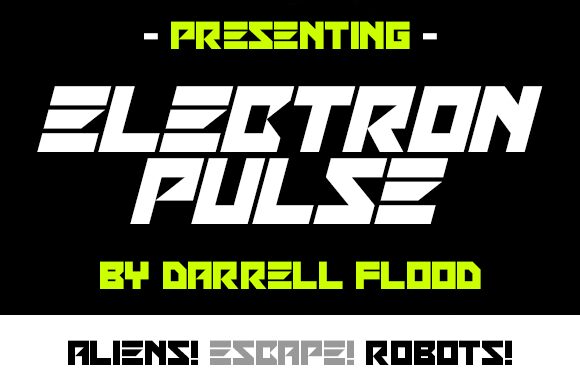
Electron Pulse Italic
Introducing Electron Pulse Italic - a bold and wide display font designed by Darrell Flood. Perfect for futuristic projects, this font family offers a unique and distinctive style. Give your project an edge with Electron Pulse Italic!